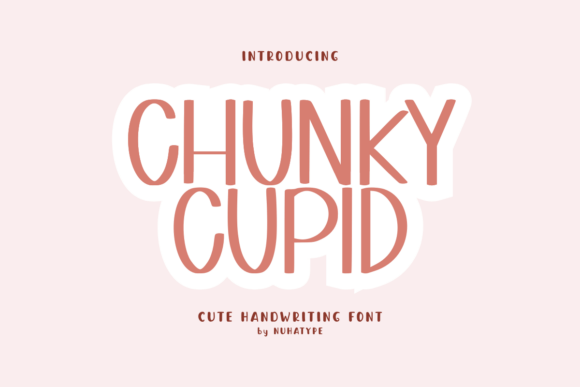
Meet Your New Favorite Font: Chunky Cupid Font
Do you remember the feeling of sitting at your childhood desk, surrounded by colorful pens and scribbled notes from your favorite teacher? The smell of freshly sharpened pencils and the sound of laughter from your classmates still linger in your mind. It’s moments like these that inspire creativity and spark imagination.
As a crafter or designer, you’re always on the lookout for fonts that evoke a sense of warmth and friendliness. That’s where Chunky Cupid Font comes in – a delightful handwriting font that brings a soft, natural touch to your projects. Perfect for crafters, moms, and designers alike, this font is designed to make your creations feel handcrafted and unique. With its smooth curves and simple strokes, Chunky Cupid Font is a valuable addition to any designer’s toolkit.
Chunky Cupid Font Key Features
- Font Family: Chunky Cupid
- Unique Characteristics: Distinctive, playful, and whimsical design with bold lines and rounded edges
Designer Review: Chunky Cupid Font
I recently had the chance to work with the Chunky Cupid font, and I must say it’s a unique addition to any design project. ✨ Here are some of its strengths:
- It’s perfect for creating playful and whimsical designs. The font’s chunky, handwritten feel adds a touch of warmth and personality to any text.
- The font is highly customizable, making it easy to adjust the size, color, and spacing to fit your design needs.
- Chunky Cupid is a great choice for social media graphics, blog posts, and other digital content where a more relaxed, conversational tone is desired.
However, like any font, Chunky Cupid has its limitations: ⚠️
- It may not be the best choice for formal or professional designs, as its playful nature can come across as unpolished or immature.
- The font’s chunky style can be overwhelming in large blocks of text, so it’s best used in moderation.
Overall, I’d give Chunky Cupid 4 out of 5 stars. It’s a fun and versatile font that’s perfect for designers looking to add some personality to their work. Just be sure to use it wisely and balance it with other, more formal elements to avoid overwhelming your audience.
Getting the Most Out of Chunky Cupid Font
Use Chunky Cupid Font for creating playful, eye-catching headings and titles.
Pair it with bold colors and contrasting backgrounds for maximum visual impact.
Experiment with different font sizes and combinations to create a unique visual identity.
Wedding invitations, baby shower decorations, and children’s party materials.
Use Chunky Cupid Font to add a touch of whimsy and romance to your designs.
Alternatives to Chunky Cupid Font
Great Vibes is a modern, elegant script font that is perfect for designs that require a touch of sophistication and whimsy. It’s ideal for wedding invitations, quotes, and other creative projects where a beautiful, flowing script is desired.
Compared to Chunky Cupid Font, Great Vibes is more refined and less chunky, making it a better choice for designs that require a more delicate touch.
Carolyna Pro is a stylish, modern script font that is perfect for designs that require a touch of luxury and sophistication. It’s ideal for branding, advertising, and other creative projects where a beautiful, elegant script is desired.
Compared to Chunky Cupid Font, Carolyna Pro is more refined and less playful, making it a better choice for designs that require a more professional tone.
Playball Font
Playball is a fun, energetic script font that is perfect for designs that require a touch of playfulness and whimsy. It’s ideal for children’s products, sports branding, and other creative projects where a bold, energetic script is desired.
Compared to Chunky Cupid Font, Playball is more energetic and less elegant, making it a better choice for designs that require a more playful tone.